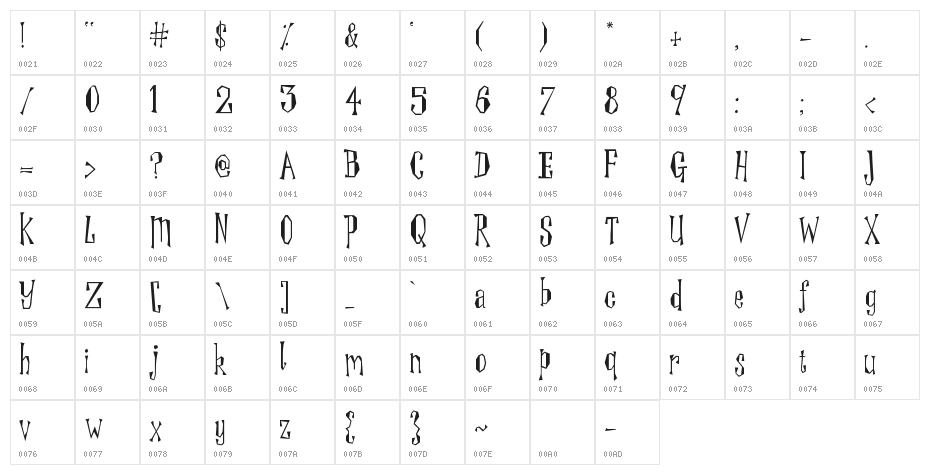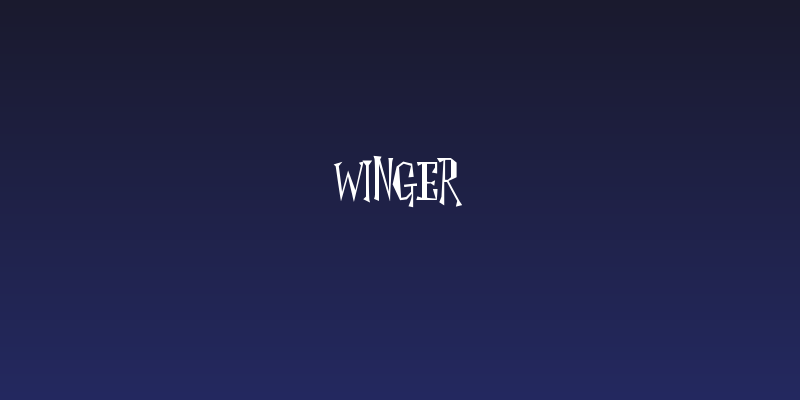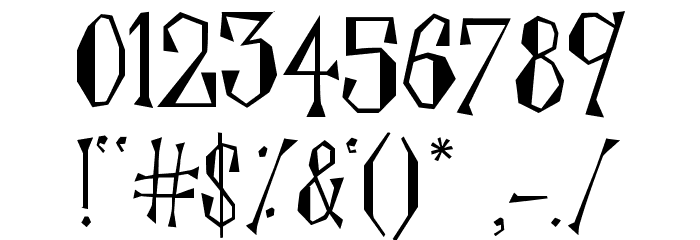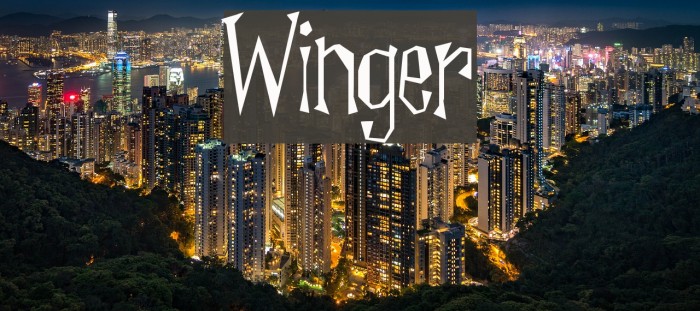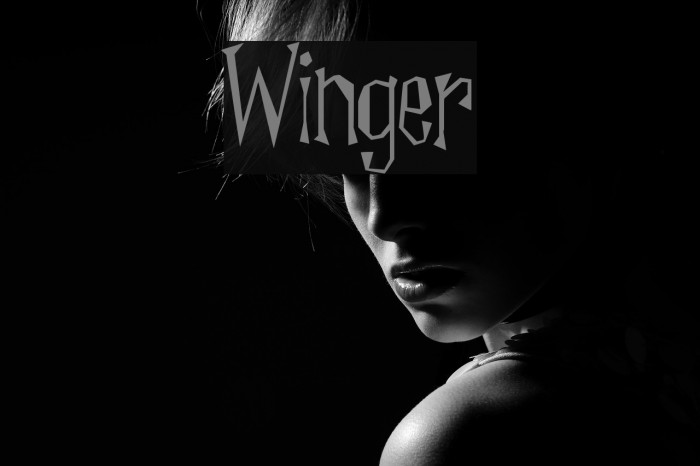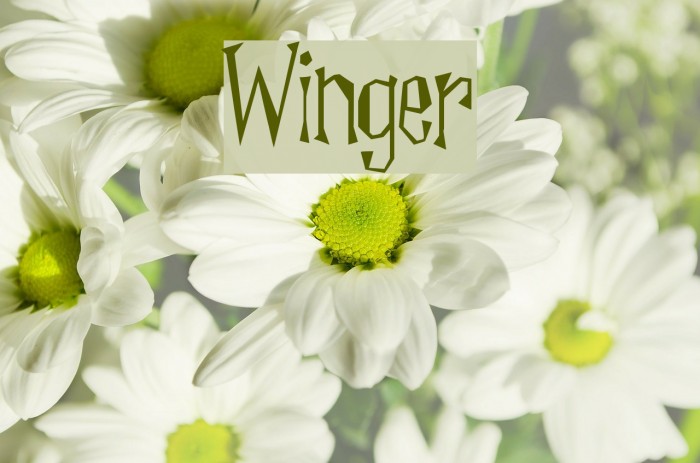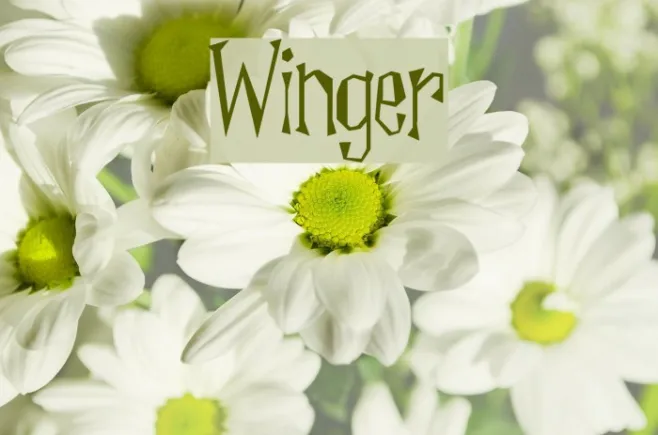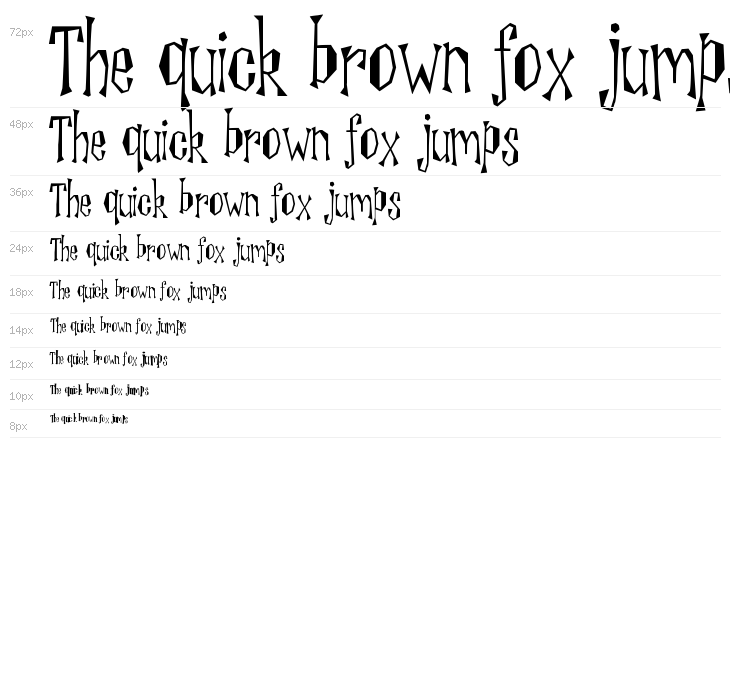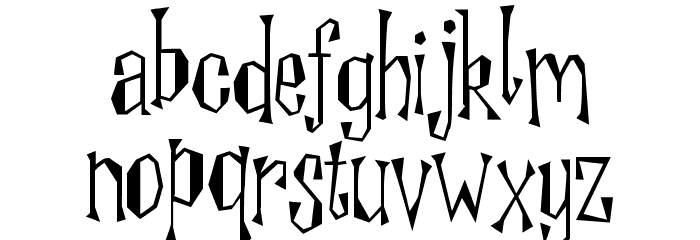
Winger Font
Winger Description
This font features a bold and angular design, characterized by sharp edges and a geometric structure. The uppercase letters are tall and narrow, with a distinct Gothic influence that gives them a dramatic and striking appearance. The lowercase letters maintain the angular theme but are slightly more condensed, providing a cohesive look across different text cases. Numbers and special characters follow the same stylistic approach, ensuring consistency throughout. The overall design is highly decorative, making it suitable for projects that require a bold and eye-catching typeface.
| Proposed Projects | Ideal for poster designs, album covers, branding for edgy or alternative products, and any project needing a dramatic visual impact. |